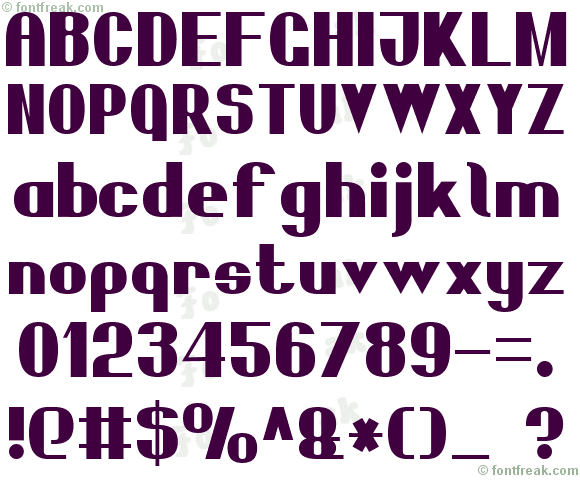
Bold Sans Serif 7
About Bold Sans Serif 7
Bold Sans Serif 7 is a striking sans-serif font designed by Style-7, released as freeware in 2014. This font showcases a modern aesthetic with its bold stroke weight, providing an assertive presence in any design. The even spacing between characters enhances readability, making it suitable for a variety of applications. The lack of decorative elements keeps the design clean and straightforward, which aligns perfectly with contemporary trends in typography.
This versatile font finds its best use in projects that require a strong visual statement. Whether you’re creating eye-catching movie posters, impactful advertising banners, or dynamic restaurant menus, Bold Sans Serif 7 can elevate your design to new heights. Its robust appearance also makes it a great choice for branding materials and packaging, where clarity and boldness are essential. Graphic designers, small business owners, and content creators will appreciate this font for its ability to convey messages with confidence and style.
One of the standout features of Bold Sans Serif 7 is its ability to maintain legibility even at larger sizes, making it an ideal choice for headlines and signage. Its bold nature allows it to capture attention, while its sans-serif classification ensures a modern and clean look. The font’s timeless appeal is further enhanced by its straightforward design, allowing it to seamlessly integrate into various design projects.